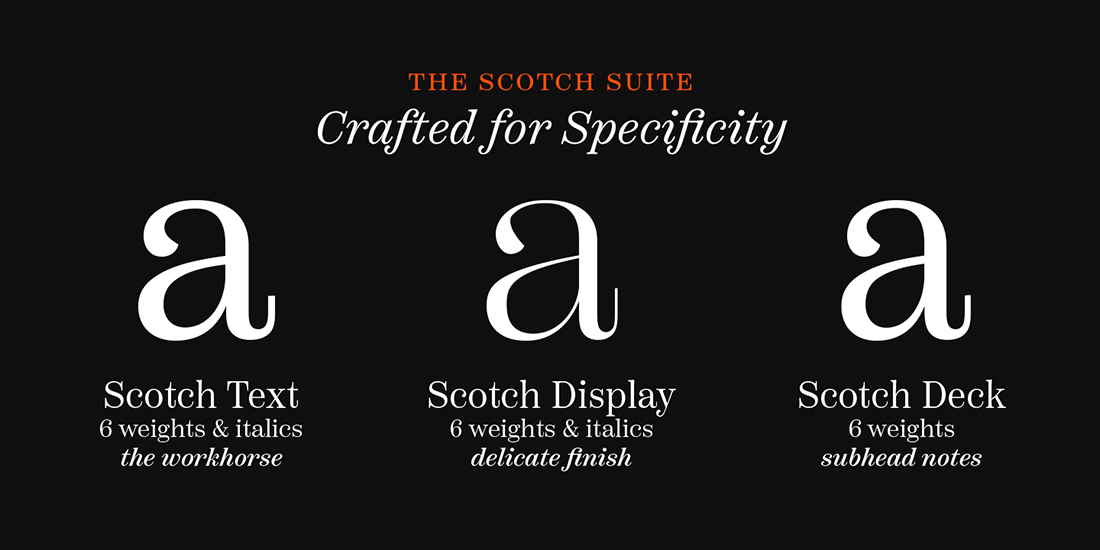
Typeface Name: Scotch
Designer: Neil Summerour
Foundry: Positype
Release Date: August 2017
Back Story: Neil Summerour began working on Scotch three years ago as an outlet for his own creativity while creating bespoke and custom alphabets for clients at Positype, the foundry he established in 2000. This latest release branches off the historical roots of the transitional-style Scotch Roman (or just Scotch) typefaces popular in England during the early nineteenth century. Named after the Scotch foundries of Alexander Wilson in Glasgow and William Miller in Edinburgh, who were responsible for the first versions, these letterforms feature strong contrast, vertical stress, and bracketed serifs.
Legendary type designer Matthew Carter’s Miller, a Scotch revival released in 1997, is both well-known and well-loved, so Summerour knew he needed to find a good hook to set his effort apart. “My biggest focus was how to produce something unique and wholly my own while addressing current, contemporary needs,” says the designer.
Why’s it called Scotch? Summerour couldn’t resist calling a Scotch a Scotch, given the wealth of design (and promotional) possibilities linking the typeface’s name both to its classification and the popular adult beverage. He says, “I decided on the name even before I drew the first letter—that was easy.”
What are its distinguishing characteristics? The designer found most Scotch faces too soft and subdued in mass, so his angle of attack was to distill the letterforms into a more simplified, crisp, and deliberate architecture. The ultra-high-contrast display weight is a thing of beauty, especially the italics. Ampersands across the board display the flair typical of this character within Scotch Romans, plus a dose of tipsy, flirtatious charm all their own. Summerour designed three distinct optical styles (Text, Deck, and Display) across 30 fonts—and a dingbats font, full of shapes and characters, just for fun. Wait, tell us more about the dingbats! “Yeah, I had to,” Summerour admits. “Otherwise, I wouldn’t have been able to draw the first-ever ‘dramicule’ (credit to Mark Bixby for coining the term), along with snifters, highball glasses, round and square ice cubes…and of course arrows, fleurons, and more.” (For the uninitiated: the dramicule takes its name after the dram, a measure for a small pour of whisky or liquor.)
Scotch the typeface made its formal debut at a private Scotch-tasting event in Boston during TypeCon last August, where guests sampled six single malts while learning about the subtleties of each. Foundries take note: liquor-based type launches should become an industry standard, and very soon.
What should I use it for? Positype’s Scotch typeface families are purposely drawn to produce a modern, youthful, and energetic serif style for screen and print—for use anytime you want a serif face that conveys a feeling of warmth and self-assurance. No need to use it in moderation, either.
What other typefaces do you like to pair it with? The designer likes to match it with Aago, another Positype face. It also looks oddly great in combination with FF DIN. You also might try it with an after-dinner drink.